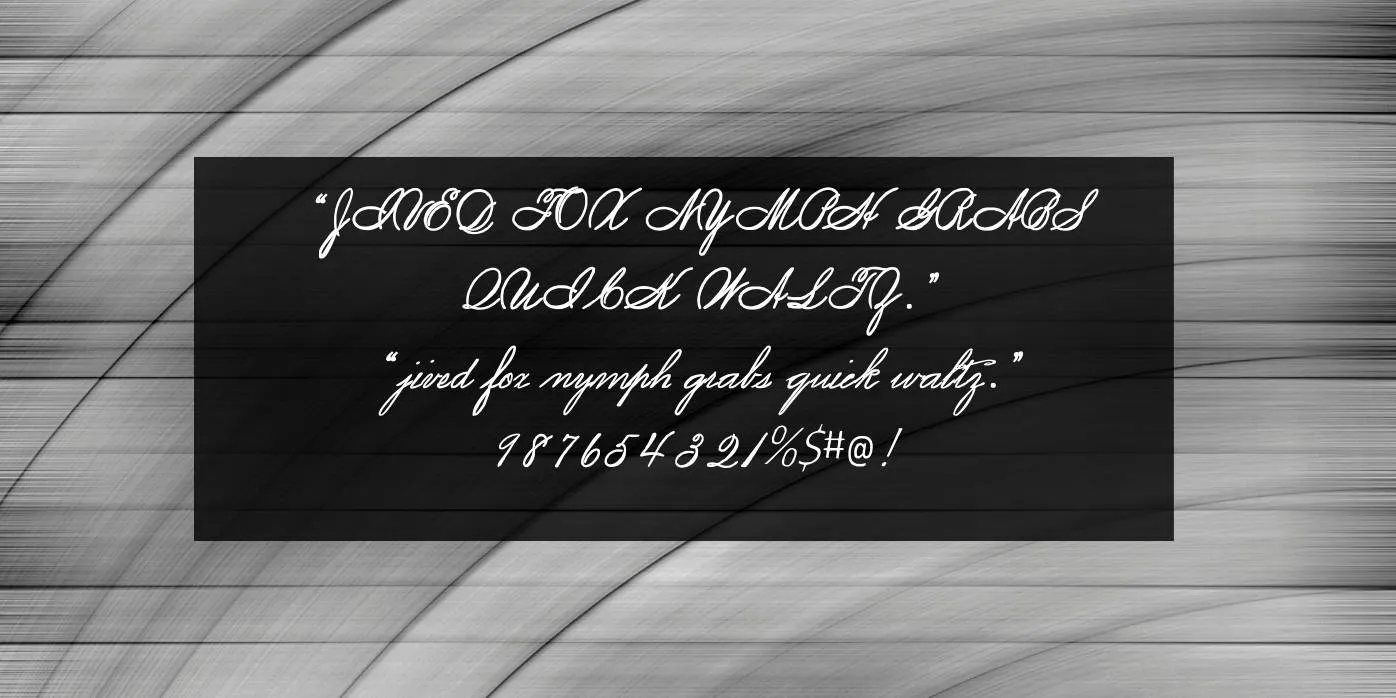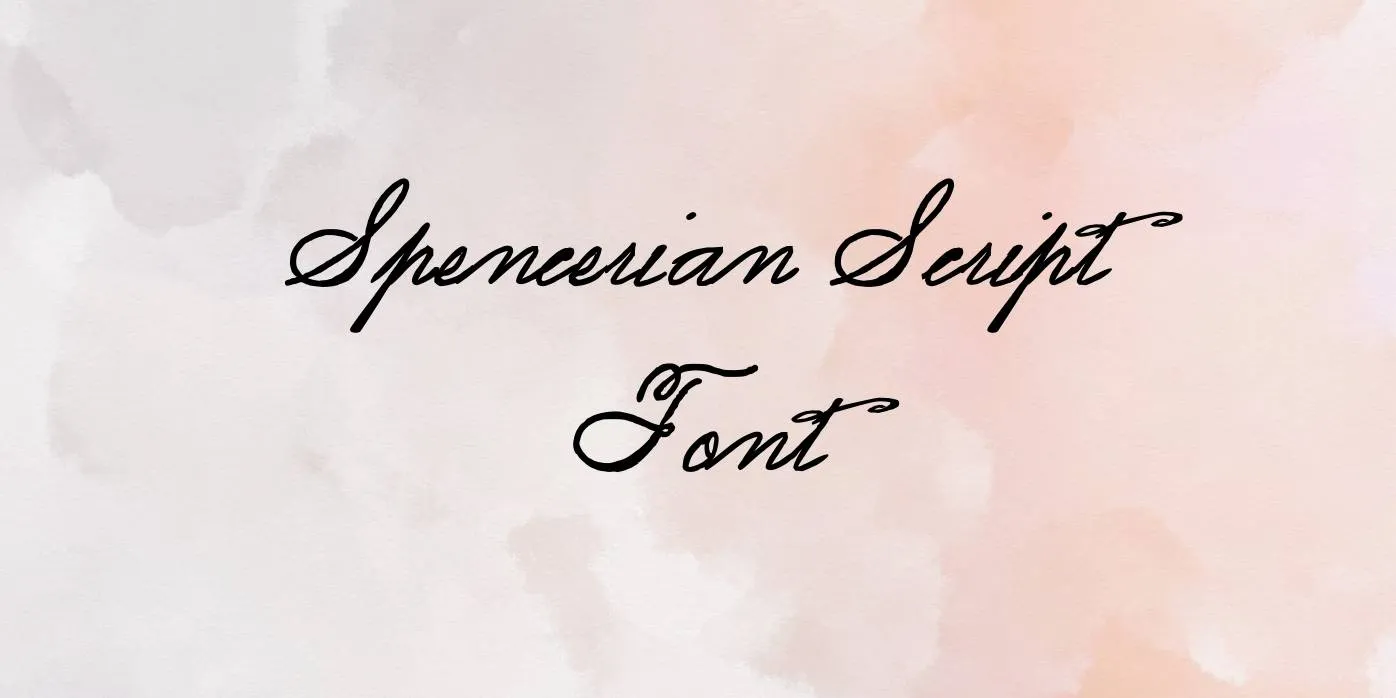
Spencerian Script Font
Today, we present a classic typeface named Spencerian Script Font. This typeface belongs to the script typeface. Spencerian was developed in the 19th century and was widely used in the United States. Spencerian Script is a beautiful, classic script typeface with a long history.
It was developed in the early 1800s by Platt R. Spencer, and quickly became popular in the United States. In fact, it was the standard form of penmanship taught in schools for many years. You can use its copy and paste function for all of your text designs.
This classic family includes three weights: Light, Regular, and Bold. If you’re looking for an elegant, classic script font for your next project, look no further than this typeface is best for all of your designs. It will allow you to use its generator tool for all of the graphic designs.